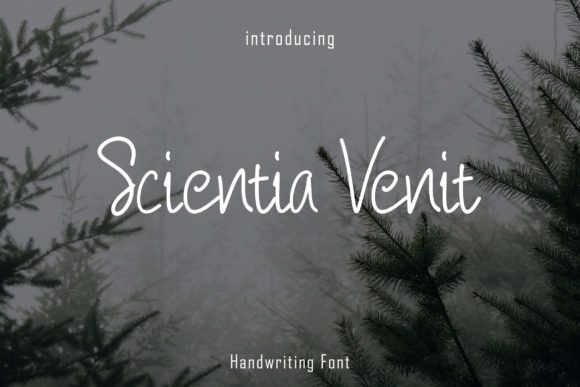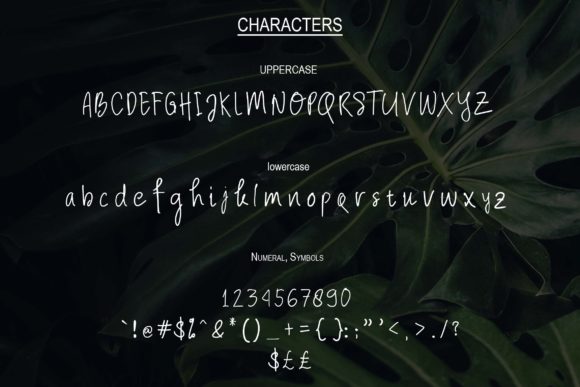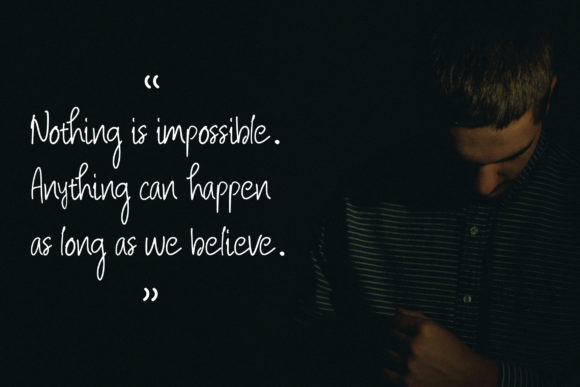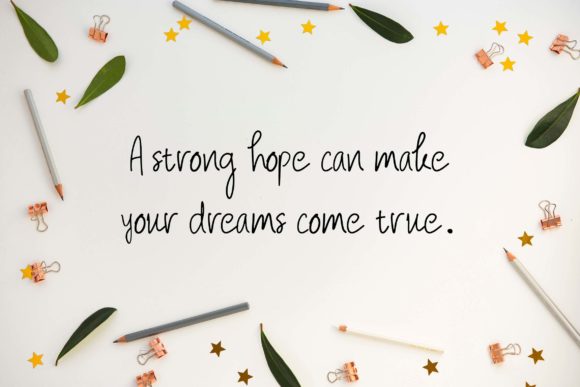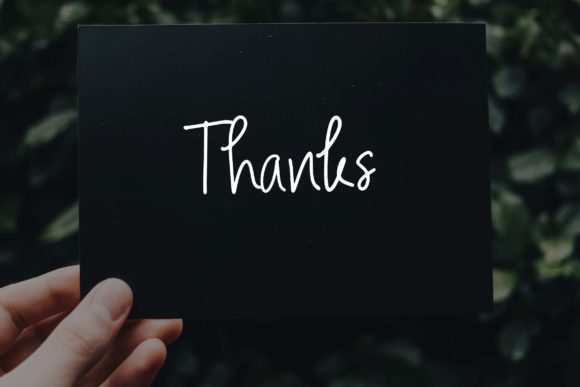
Scientia Venit Font
About Scientia Venit Font
Scientia Venit is a unique script with a simple and sweet look. Use this typeface to add an authentic and hand-made touch to any design project!